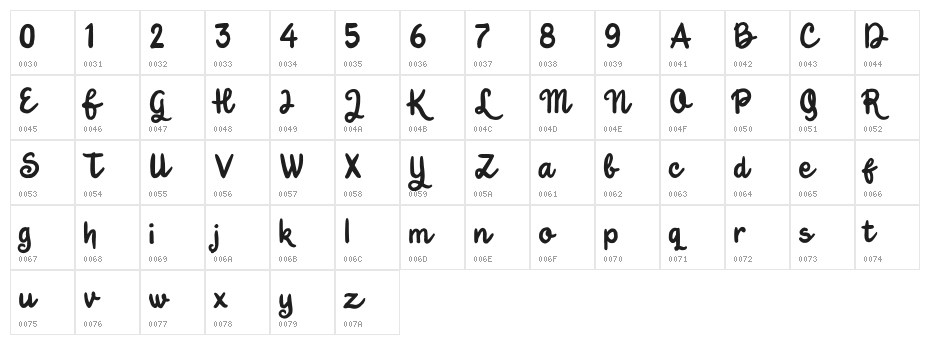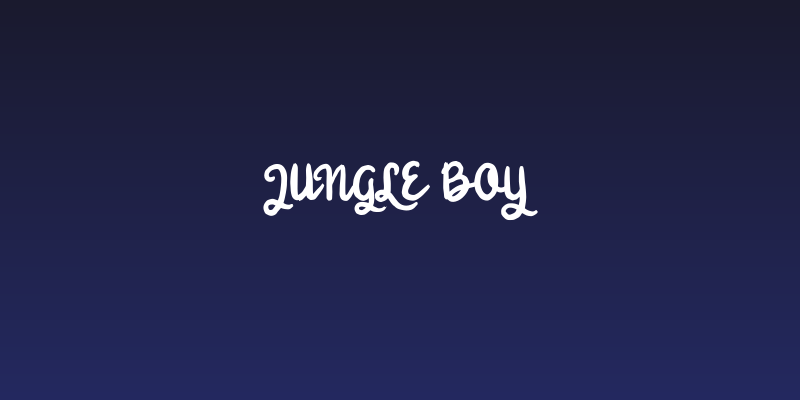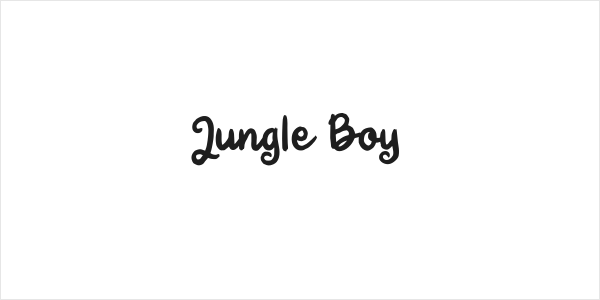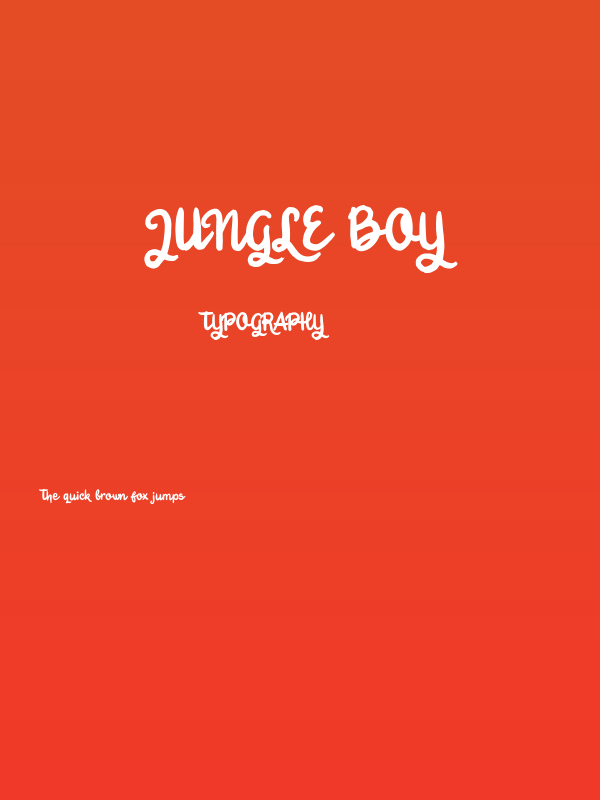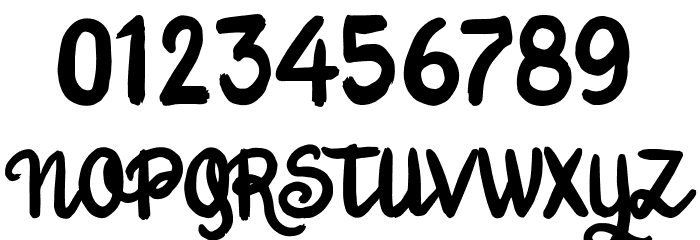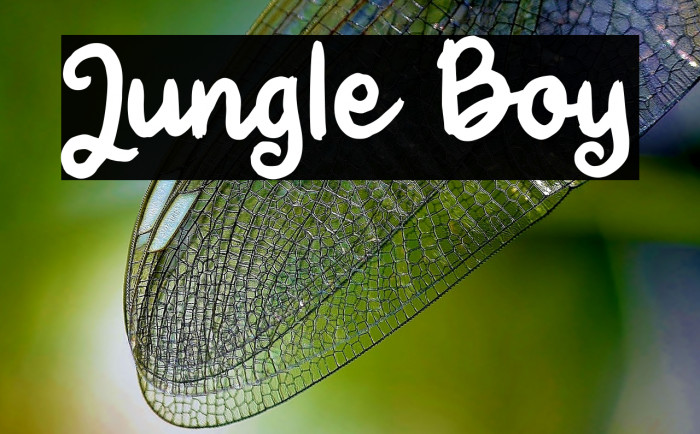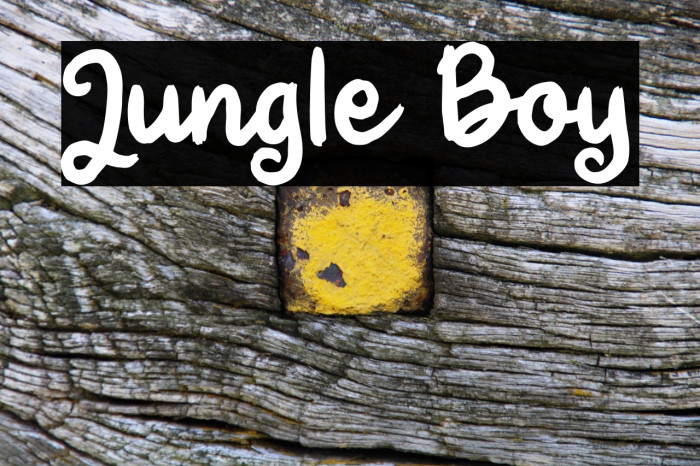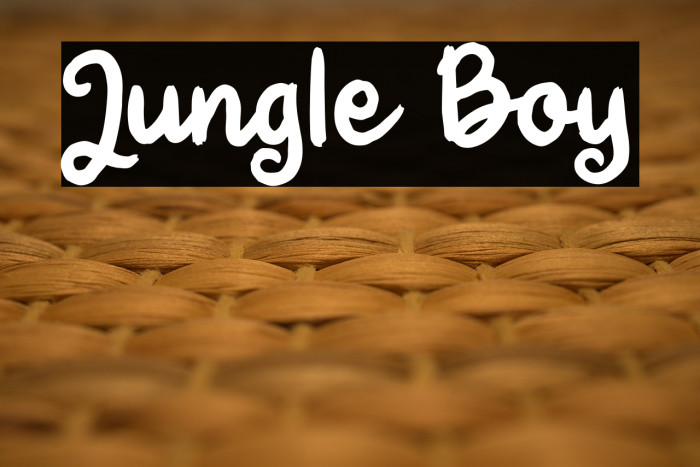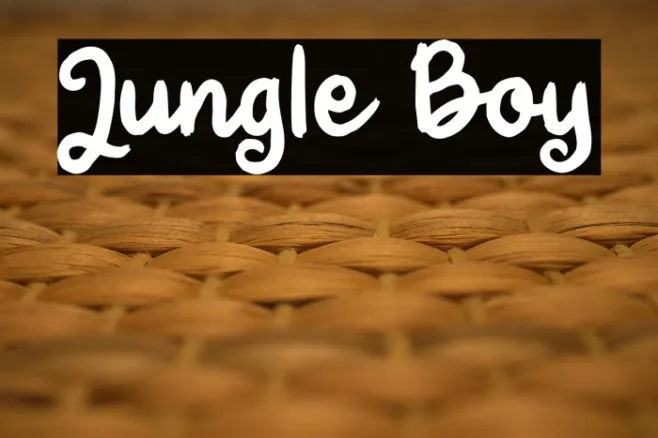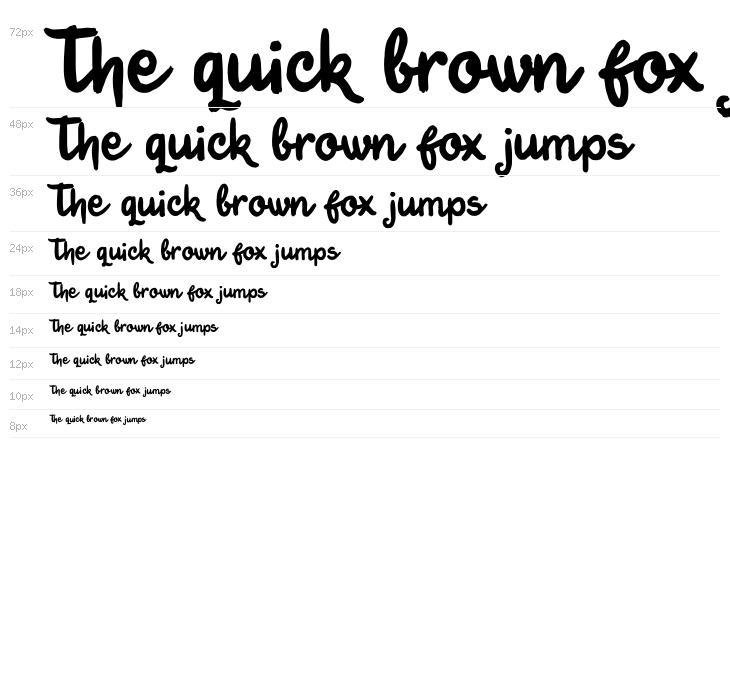
Jungle Boy Font
Jungle Boy Description
This font features a playful and whimsical design, characterized by its bold, rounded strokes and a hand-drawn aesthetic. The letters are crafted with a sense of movement and energy, often incorporating unique flourishes and loops that add to its charm. The uppercase and lowercase letters maintain a consistent style, with a slight variation in size and embellishment. Numbers and special characters follow the same lively theme, ensuring a cohesive look across all text. The font's thick lines and distinctive shapes make it highly legible while retaining a fun and creative appearance.
JUNGLE-BOY UPPERCASE
JUNGLE-BOY LOWERCASE
JUNGLE-BOY OTHER CHARS